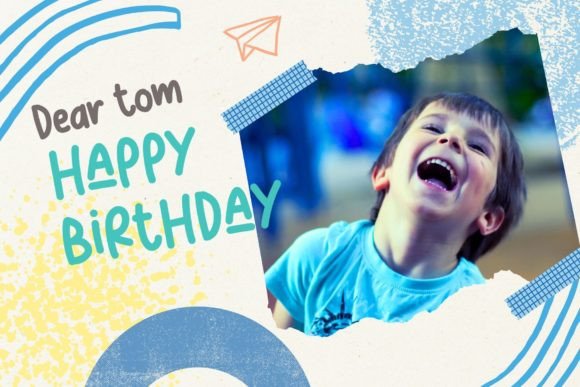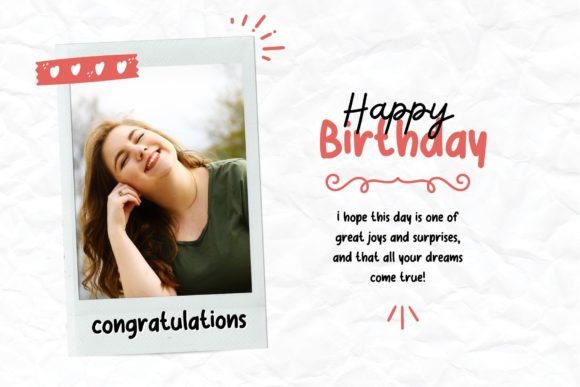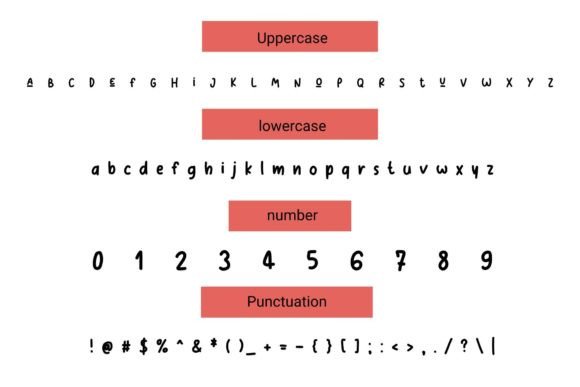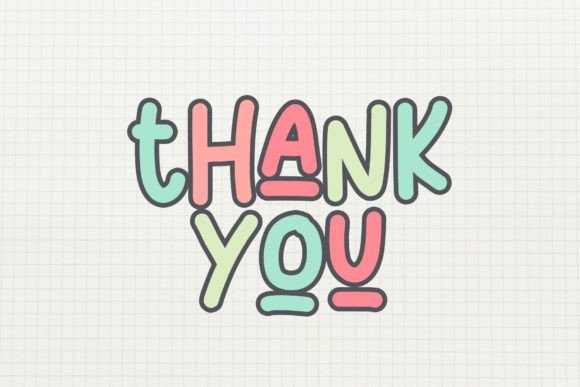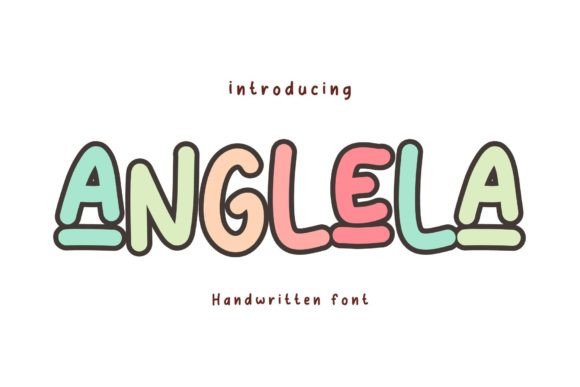
Introducing Anglela Font: The Perfect Handwritten Companion for Designers and Crafters
Are you on the hunt for a font that embodies playfulness and authenticity? Look no further than Anglela Font, a delightful handwritten font designed to bring a touch of whimsy to your projects. Whether you’re a designer, crafter, or DIY enthusiast, Anglela is the perfect choice for adding a personal touch to your creations.
What is Anglela Font?
Anglela Font is a carefully crafted handwritten font that exudes a sense of fun and friendliness. Its unique charm makes it an excellent addition to a wide range of projects, from blog posts and logos to branding, ads, invitations, greeting cards, planners, photo albums, decorations, and more.
Key Features of Anglela Font
- Playful and Authentic: Anglela Font is designed to bring a sense of playfulness and authenticity to your designs. Its handwritten style gives your projects a personal touch that’s hard to replicate with generic fonts.
- Versatile: Anglela is incredibly versatile and can be used in various contexts, from digital designs to print materials.
- Easy to Read: Despite its playful nature, Anglela Font is remarkably easy to read, making it perfect for body text and headings.
- Customizable: As a digital font, Anglela can be easily resized, colored, and manipulated to fit your design needs.
Uses for Anglela Font
The possibilities are endless when it comes to using Anglela Font. Here are some ideas to get you started:
- Blog Posts: Add a personal touch to your blog posts and make them stand out with Anglela Font.
- Logos and Branding: Use Anglela to create a unique and memorable logo for your business or brand.
- Invitations and Greeting Cards: Make your invitations and greeting cards extra special with Anglela’s playful and authentic style.
- Planners and Organizers: Add a touch of whimsy to your planners and organizers with Anglela Font.
- Decorations: Use Anglela to create beautiful and eye-catching decorations for parties, events, or everyday decor.
Tips for Using Anglela Font
To get the most out of Anglela Font, here are some tips to keep in mind:
- Experiment with Sizes: Anglela Font looks great in various sizes, from small body text to large headings.
- Play with Colors: Try pairing Anglela with different colors to create a unique and eye-catching design.
- Mix and Match: Combine Anglela with other fonts to create a visually appealing and dynamic design.
Anglela Font is a delightful handwritten font that’s perfect for designers, crafters, and DIY enthusiasts looking to add a touch of playfulness and authenticity to their projects. With its versatility, readability, and customizability, Anglela is an excellent choice for a wide range of applications. So why wait? Add Anglela Font to your design toolkit today and enjoy the results!
Whether you’re a seasoned designer or just starting out, Anglela Font is sure to become a favorite in your collection. Its unique charm and whimsical style make it an excellent addition to any project, and its ease of use ensures that you can get started right away. So go ahead, get creative with Anglela Font, and see the difference it can make in your designs!